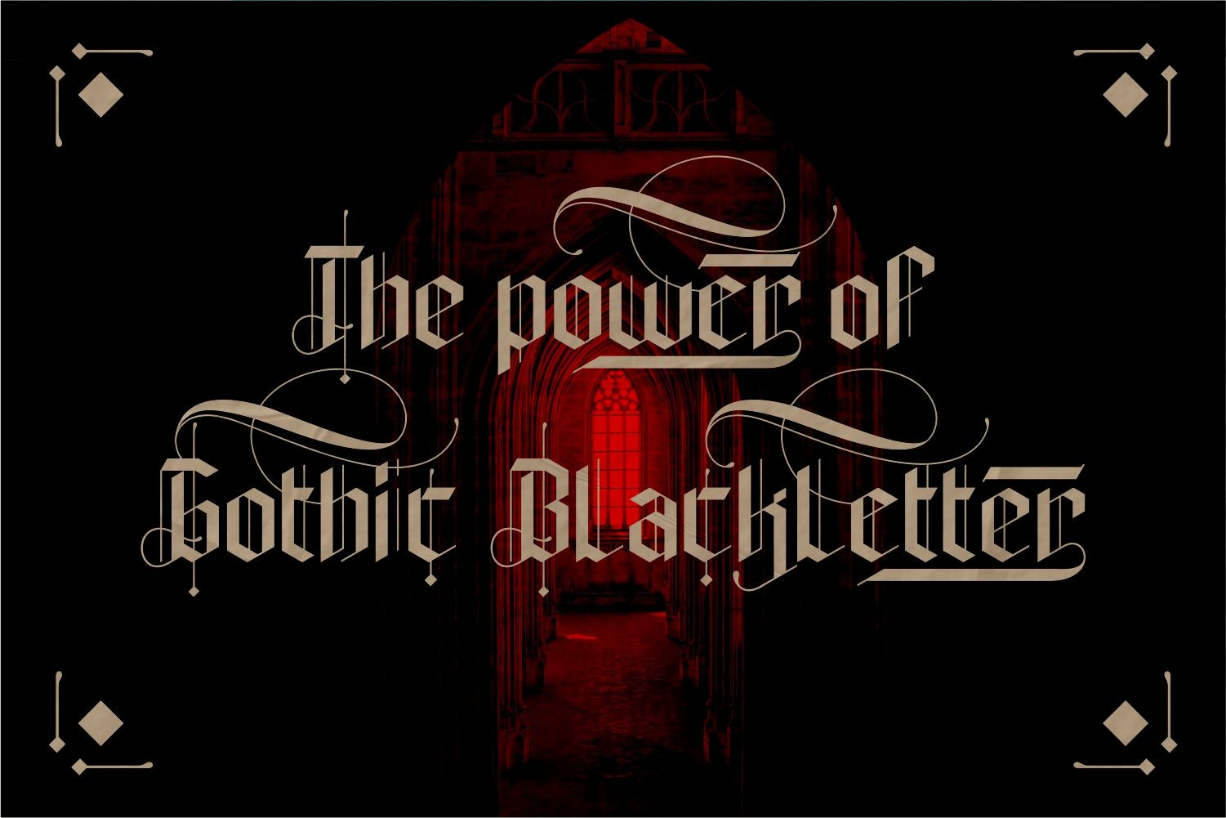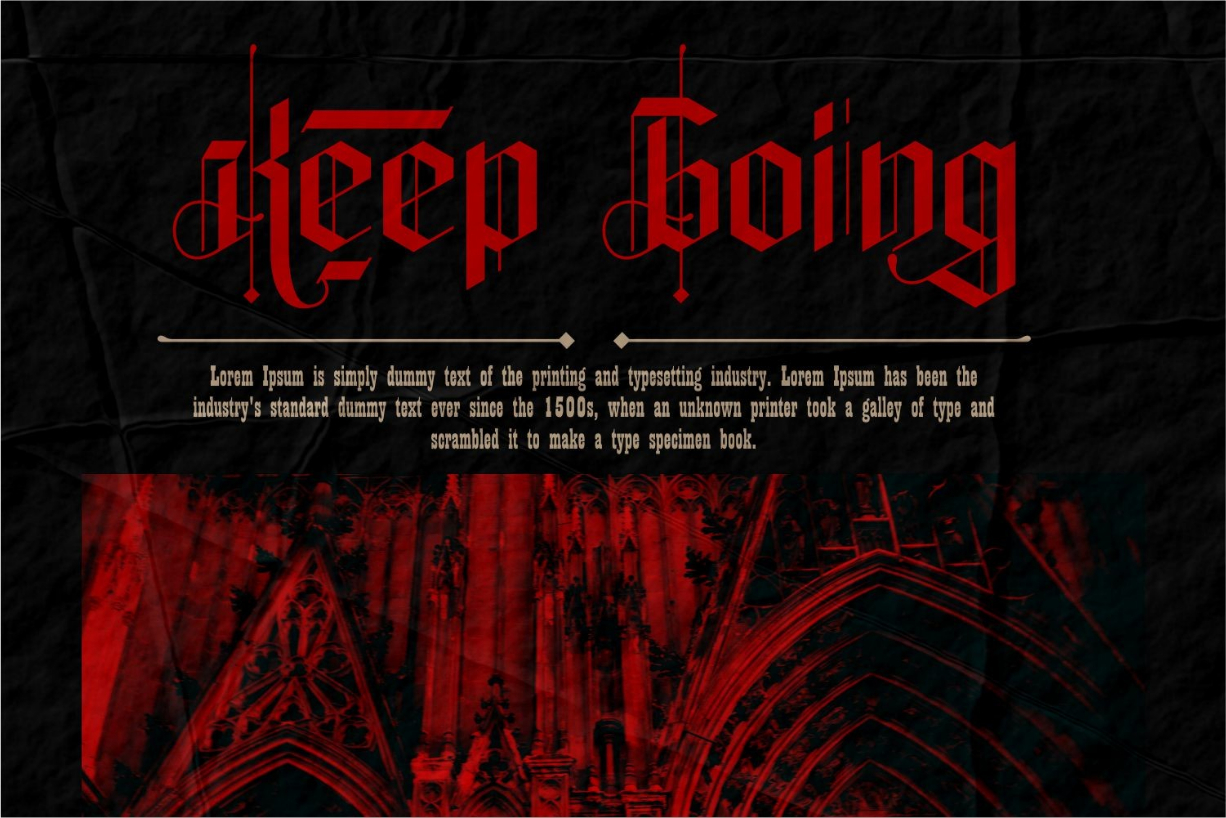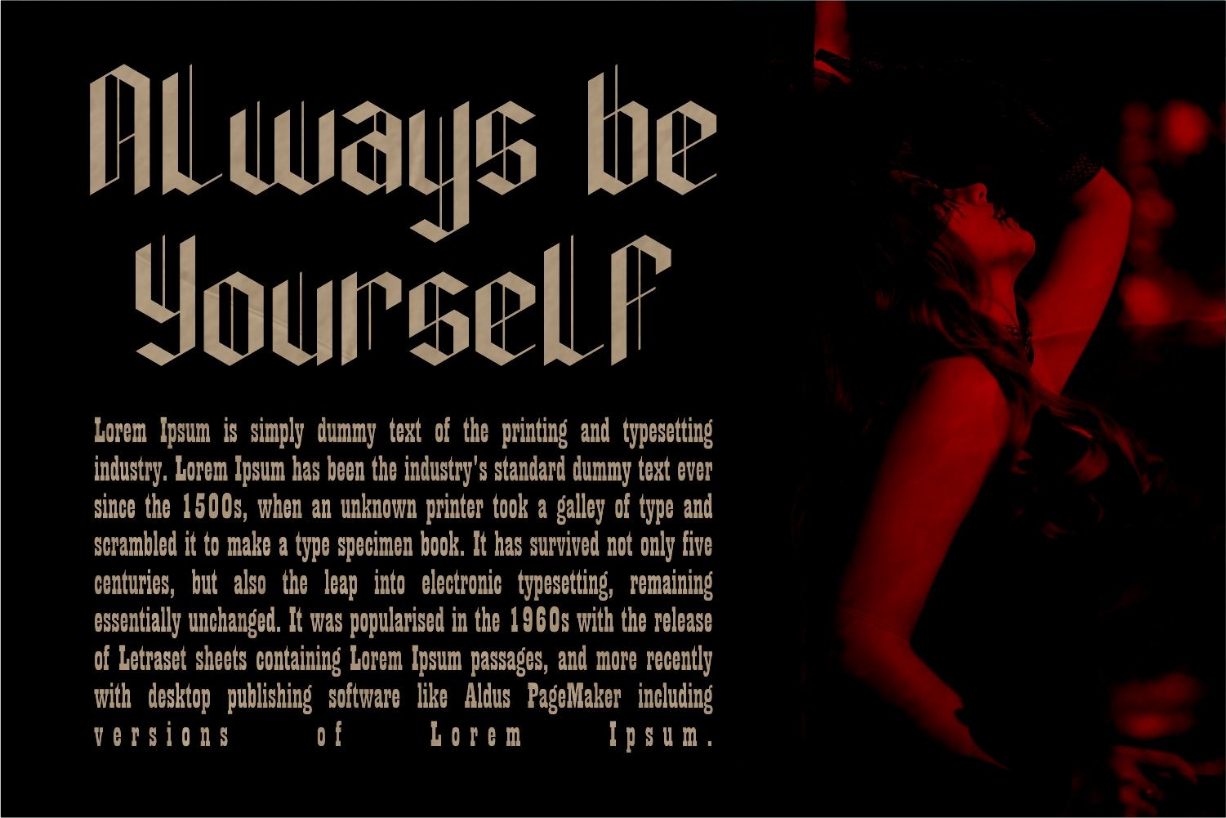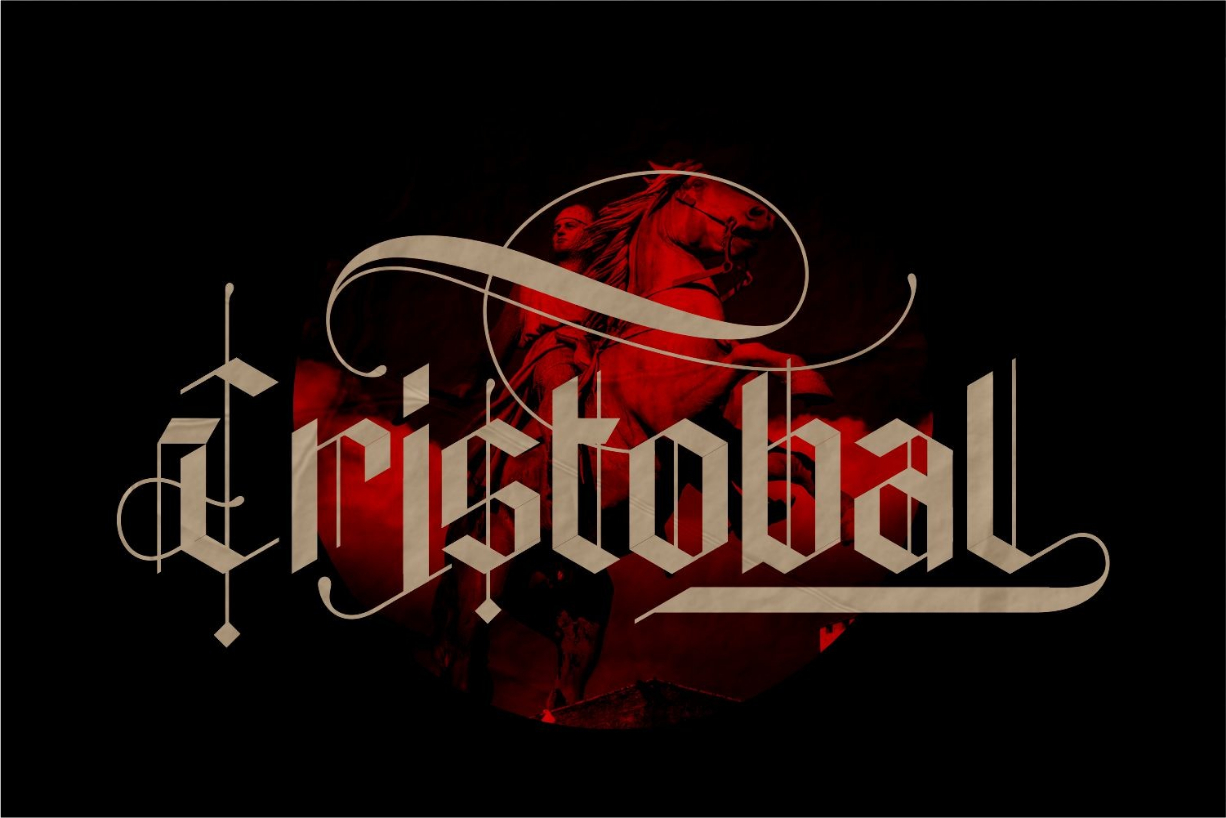
About Autron Font
Autron is a cool and contemporary blackletter font that combines the traditional Gothic script with modern design elements. Its sharp and angular letters are tightly spaced, creating a bold and commanding presence. The font’s crisp lines and clean curves give it a sleek and stylish edge, while its blackletter heritage adds an air of history and sophistication. This font is perfect for projects that require a touch of classic elegance with a modern twist, such as editorial design, branding, and packaging.